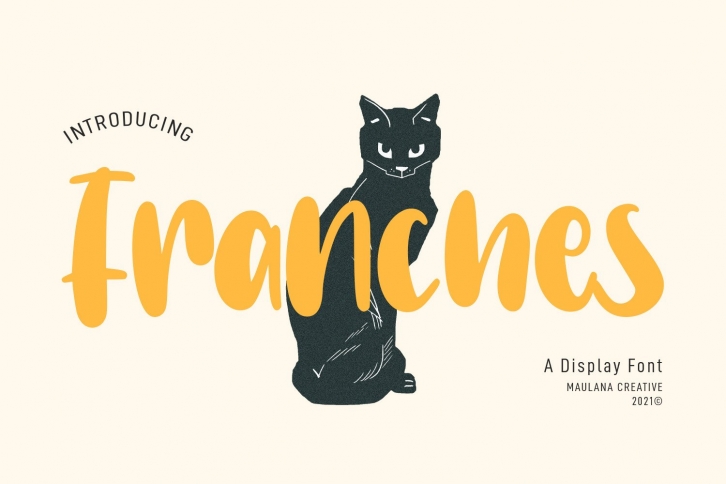
Franches is a fun and adaptable display font. Whether you use it for cartoon related designs, children games or just any creation that requires a lovely touch, this font will be an amazing choice.